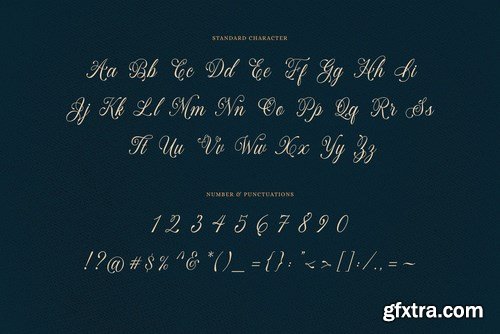
ARC DE LAVEINT is an old style script font with a bit of a feminine touch. This font, which is inspired by the basic form of copperplate letters, is very beautiful, moreover it has quite a lot of variations in each letter (especially lowercase).